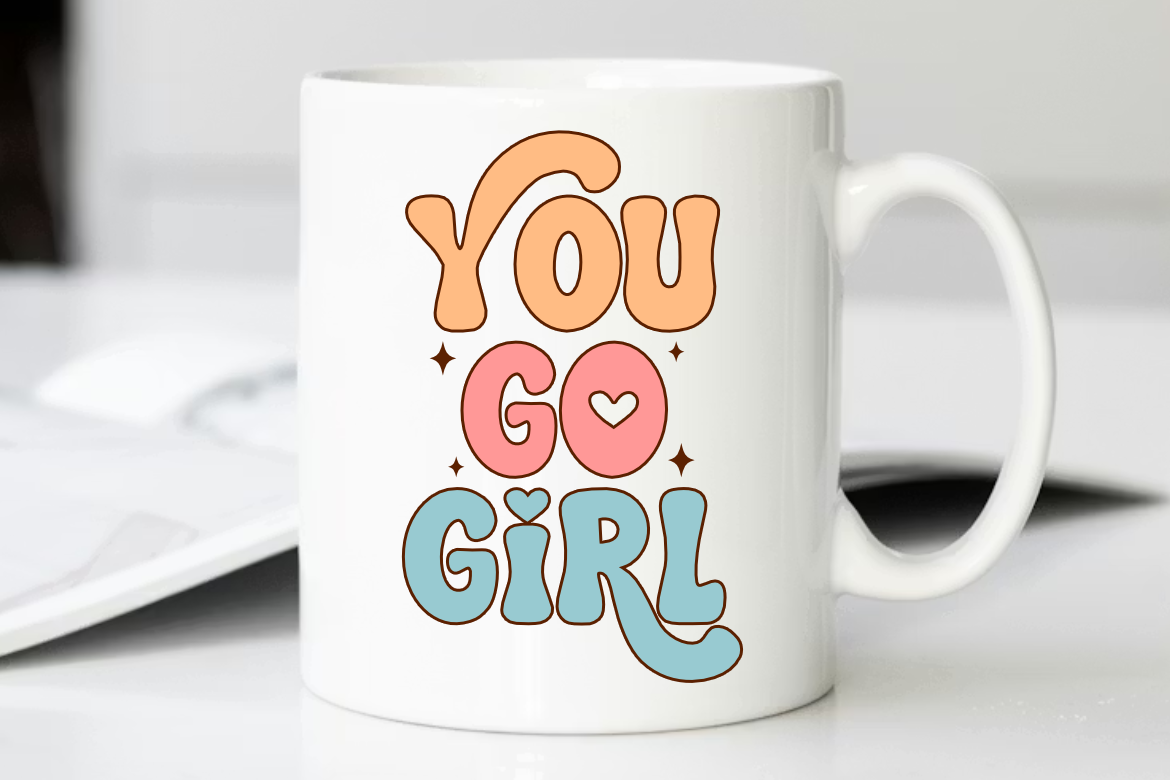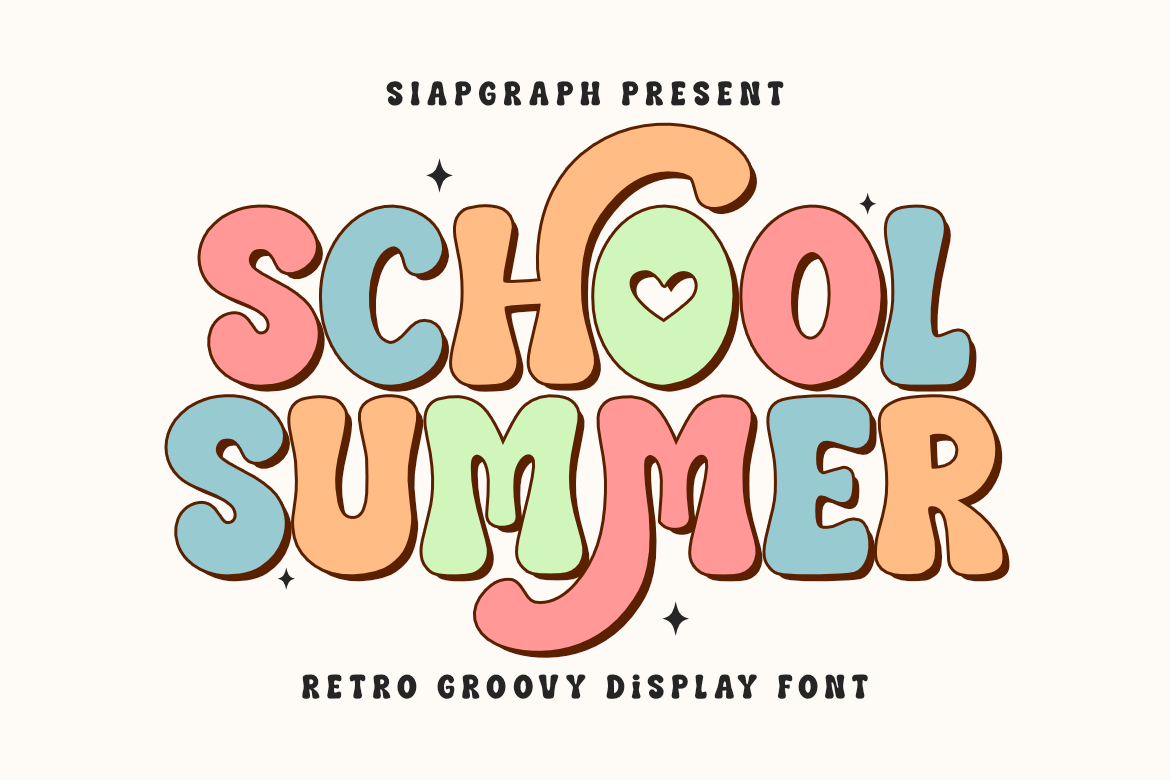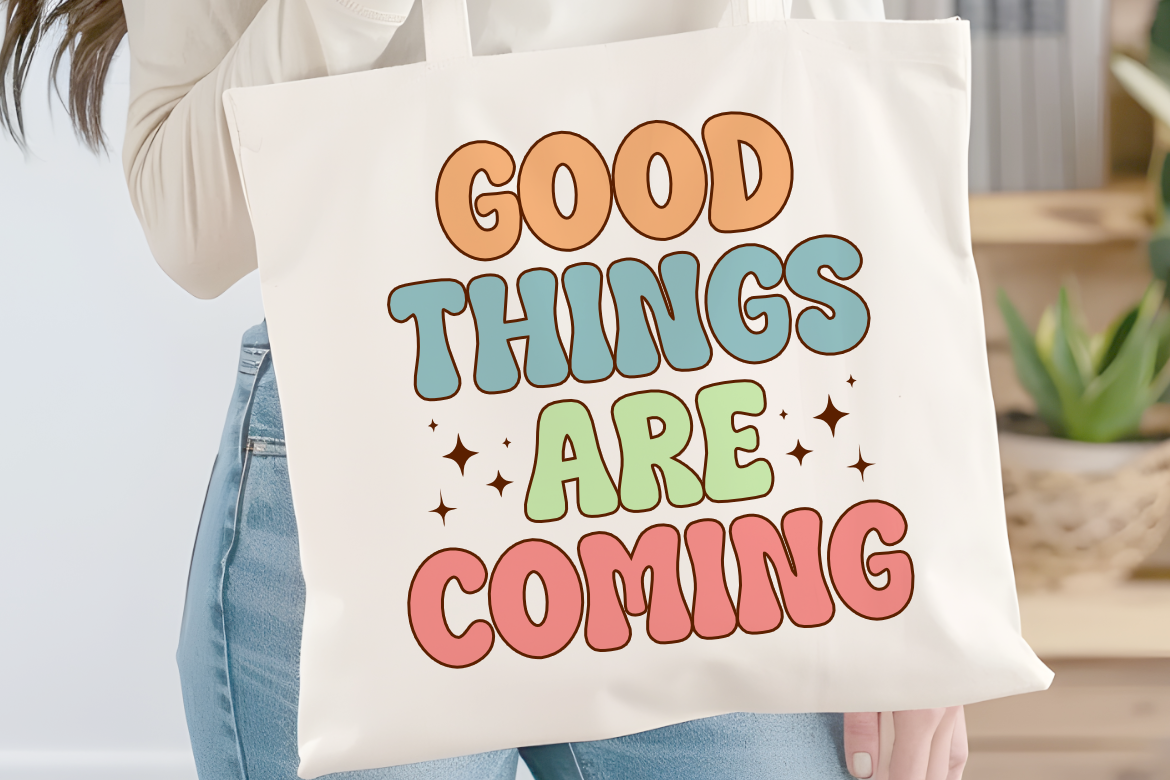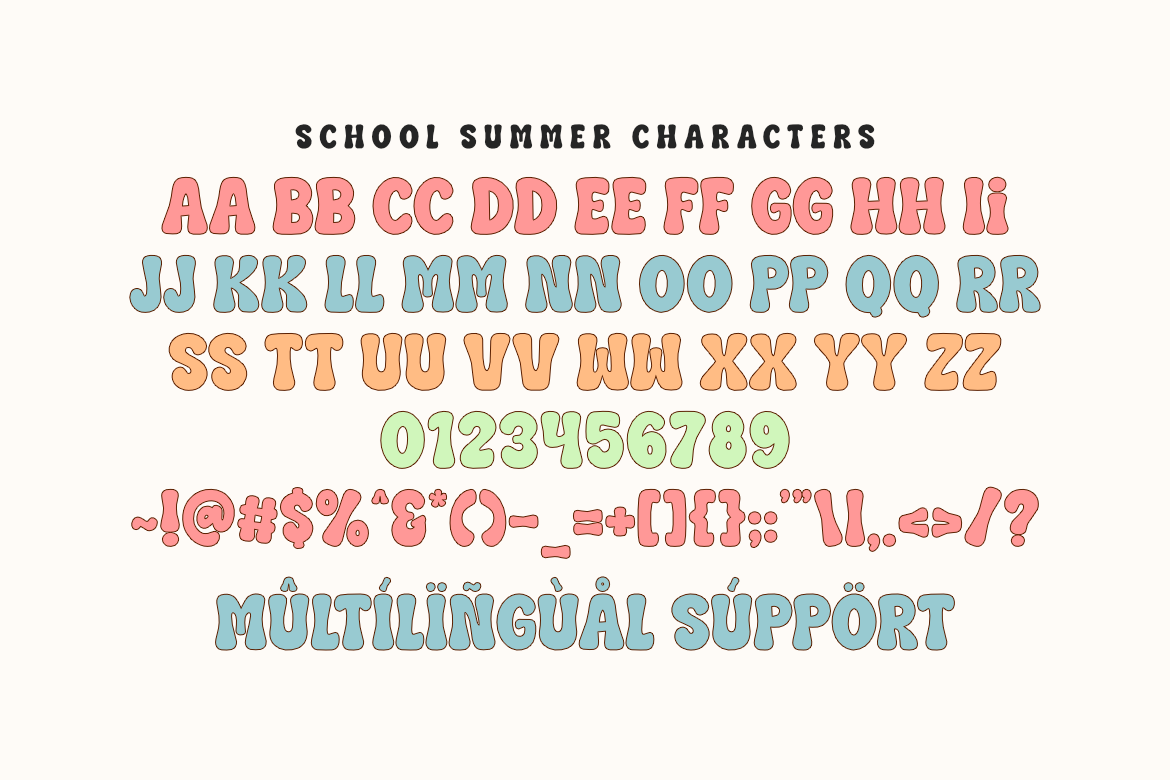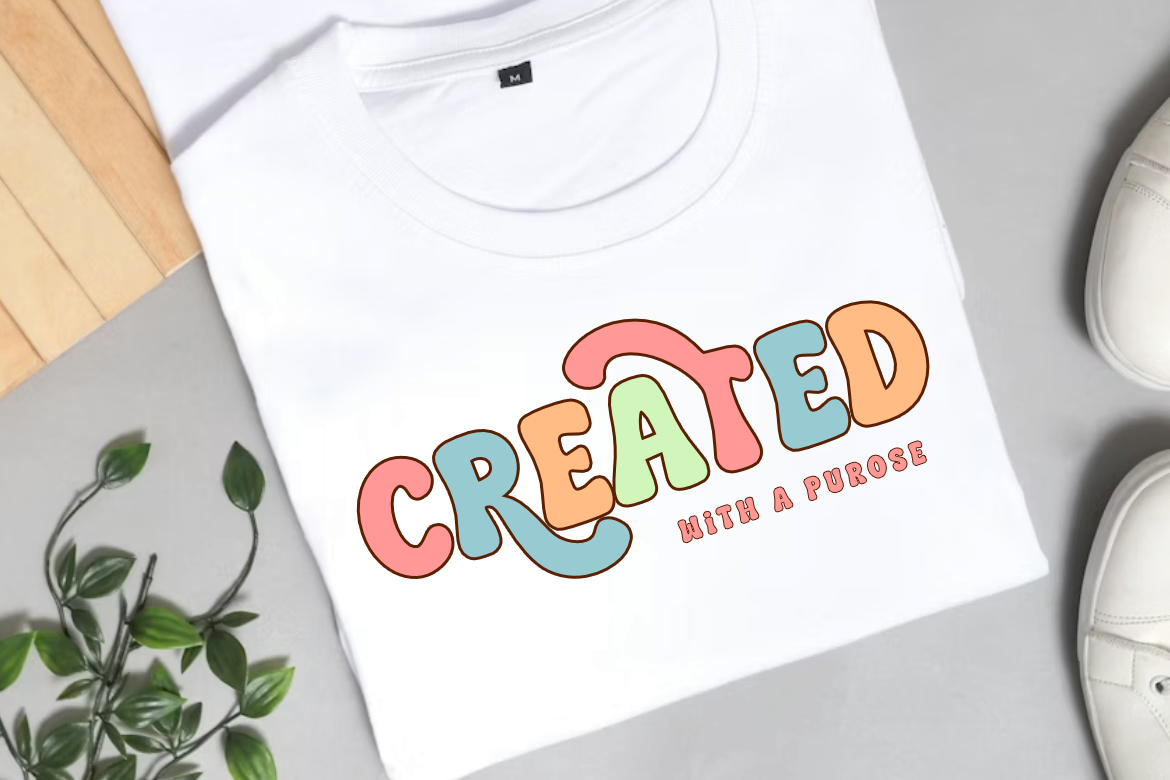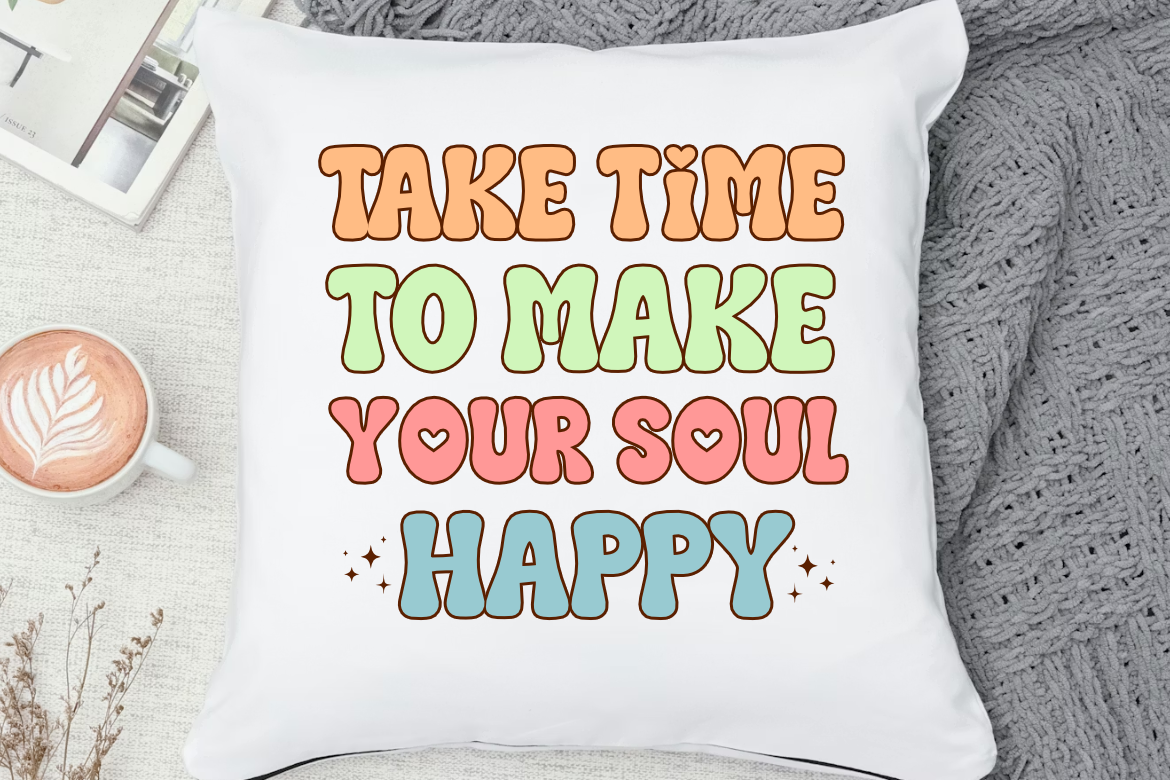
School Summer - Retro Groovy Font
School Summer - Retro Groovy Font for Cricut and Sublimation Design
School Summer is a retro groovy display font that perfectly captures the nostalgic vibes of the 70s with a cheerful, modern twist. Featuring bold, bubbly strokes and a charming heart accent integrated into the design, this typeface brings a sense of playfulness and warmth to any project. Its clean and thick outlines are meticulously optimized for the crafting community, ensuring a smooth and frustration-free cutting and weeding experience.
Perfect for: creating high-quality SVG cut files, vibrant school posters, personalized teacher supplies, classroom decor, and adorable kids' apparel. It also works beautifully for vinyl stickers, sublimation mugs, branding for children's products, and playful social media graphics that need a touch of retro flair.
Great for holiday themes such as Back to School season, Summer Break, Children's Day, and Birthdays, adding a bright, optimistic, and friendly spirit to all your creative seasonal projects!
β Stylish & unique letterforms